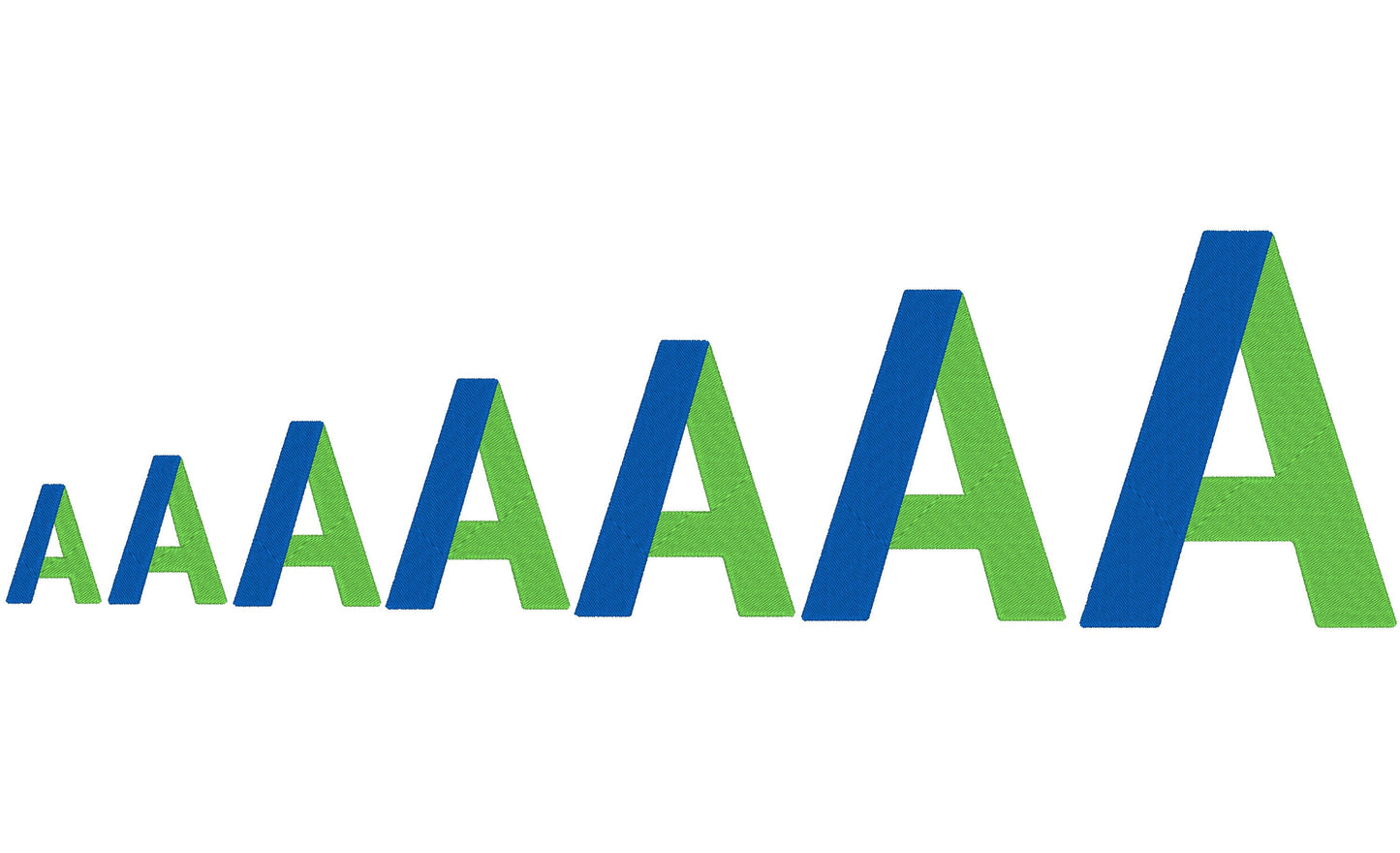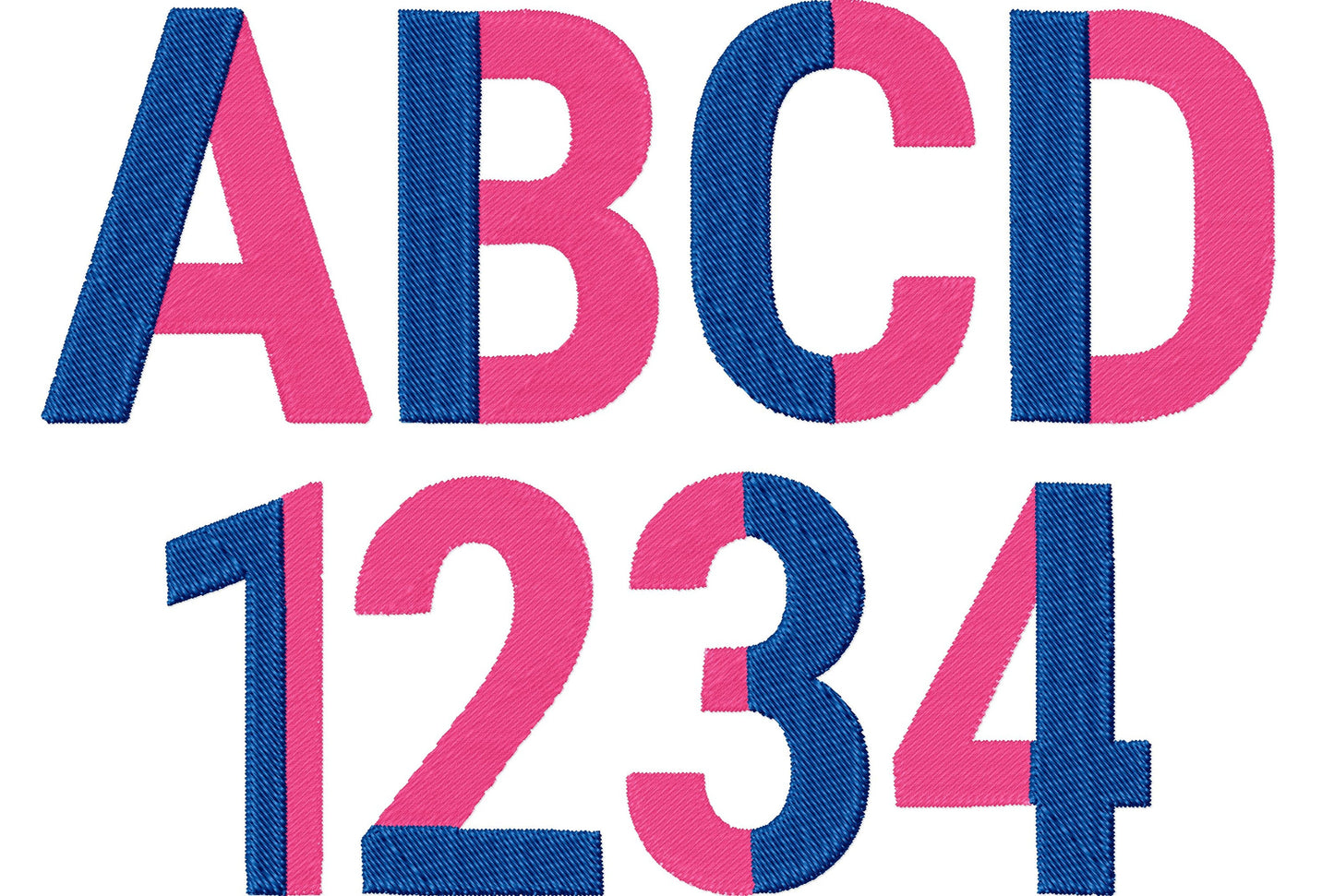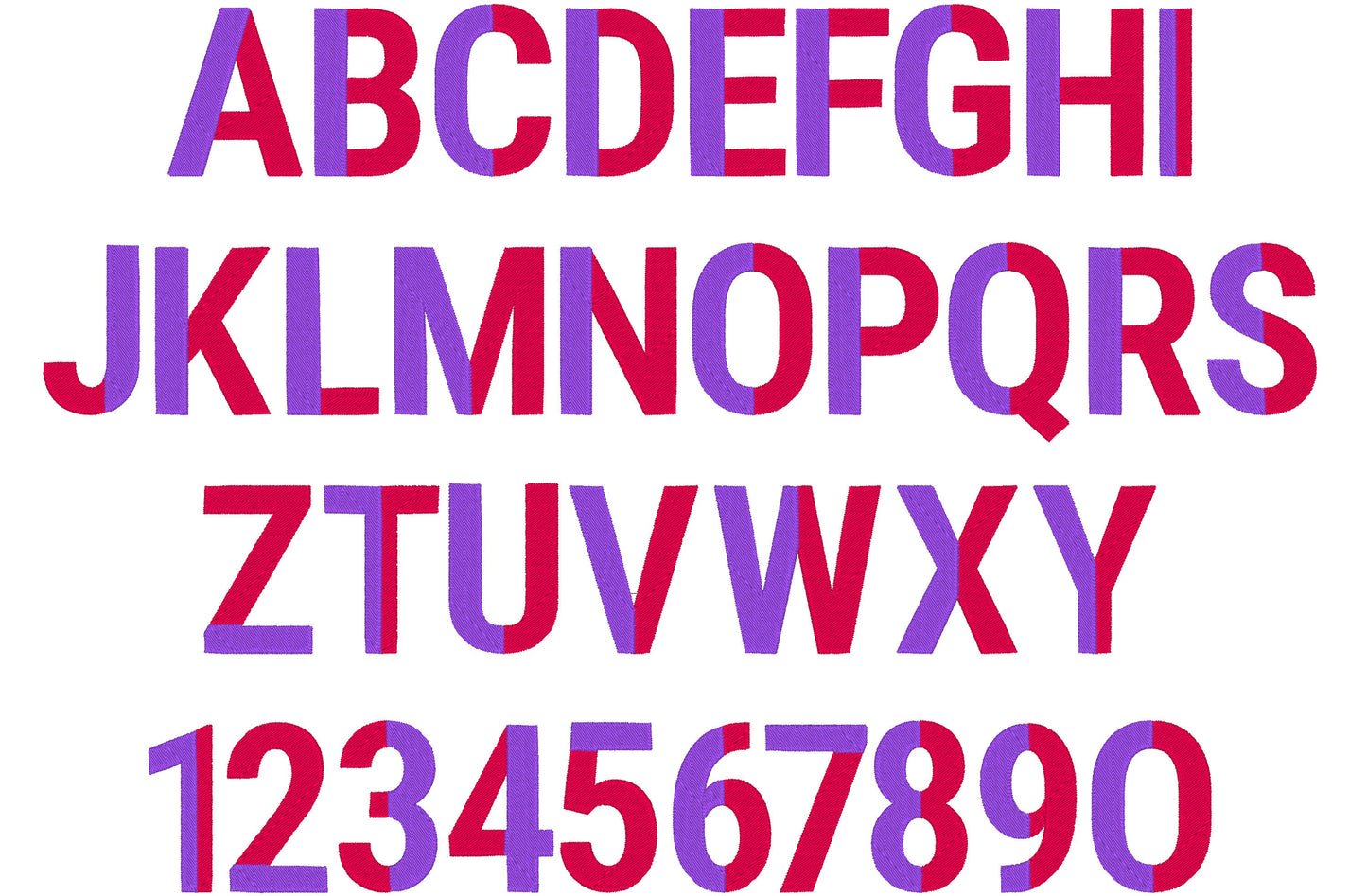
Split Narrow Fill Stitch Font
Or click to open the linkA narrow duotone font split into two colors of fill stitch. Modern and sporty for shirts, jackets, bags and names.
Uppercase letters A to Z, numbers and a period, in seven sizes: 1.5, 2, 2.5, 3, 3.5, 4 and 5 inches. Each letter is split into two thread colors.
- Narrow duotone split font, fill stitch
- Uppercase A-Z, numbers, period
- 7 sizes, 1.5 to 5 in